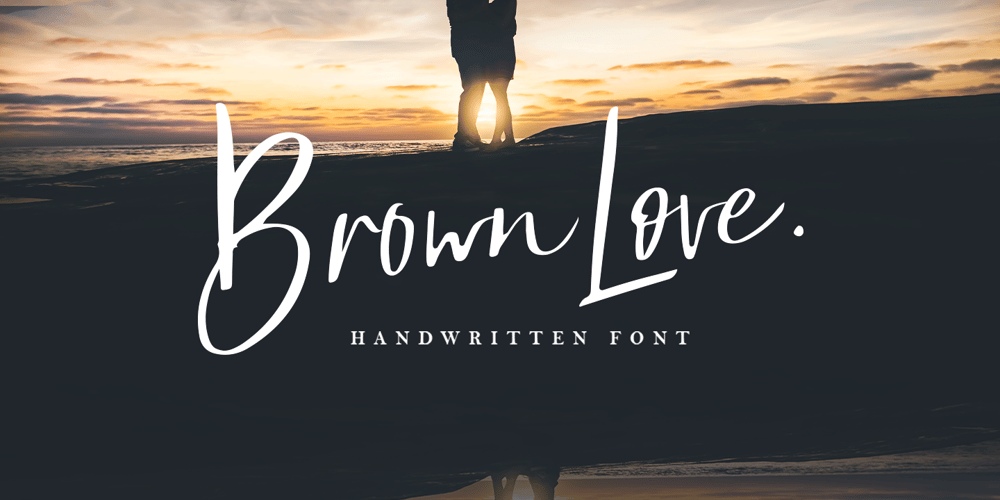
Brown Love Font Family was designed by Faisal Tanjung and published by sizimon. Brown Love contains 1 styles and family package options. Introducing our latest product Bethany Script! handwritten fonts companion designed to convey elegance and style. Bethany is perfect for fashion, e-commerce brands, trend blogs, or any business that wants to appear classy and chic.